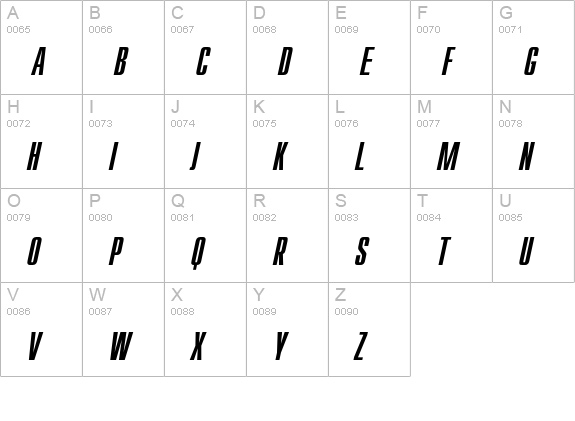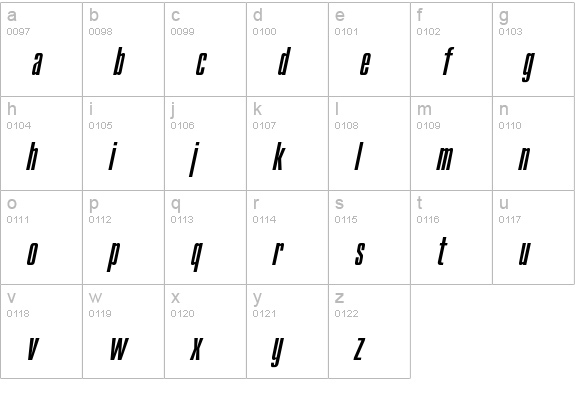
PT Compact Italic Cyrillic Font Details
PT Compact Italic Cyrillic is a distinctive, italic variant in the PT typeface family \xE2\x80\x94 well suited to design and typography projects.
PT Compact Italic Cyrillic font is a sleek and modern typeface designed for various design projects. Its italic style adds a touch of elegance and sophistication to any text. The Cyrillic characters are beautifully crafted, making it perfect for projects that require a Russian or Eastern European aesthetic. This font is not only stylish and functional but also versatile, suitable for both headings and body text. Its compact design ensures that it can be used in tight spaces without sacrificing readability. Best of all, this font is available for free download at FontsMarket.com. Whether you are a designer, a student, or a business owner, this font is a fantastic addition to your font library. Download PT Compact Italic Cyrillic font today and elevate your designs with its unique charm and style.